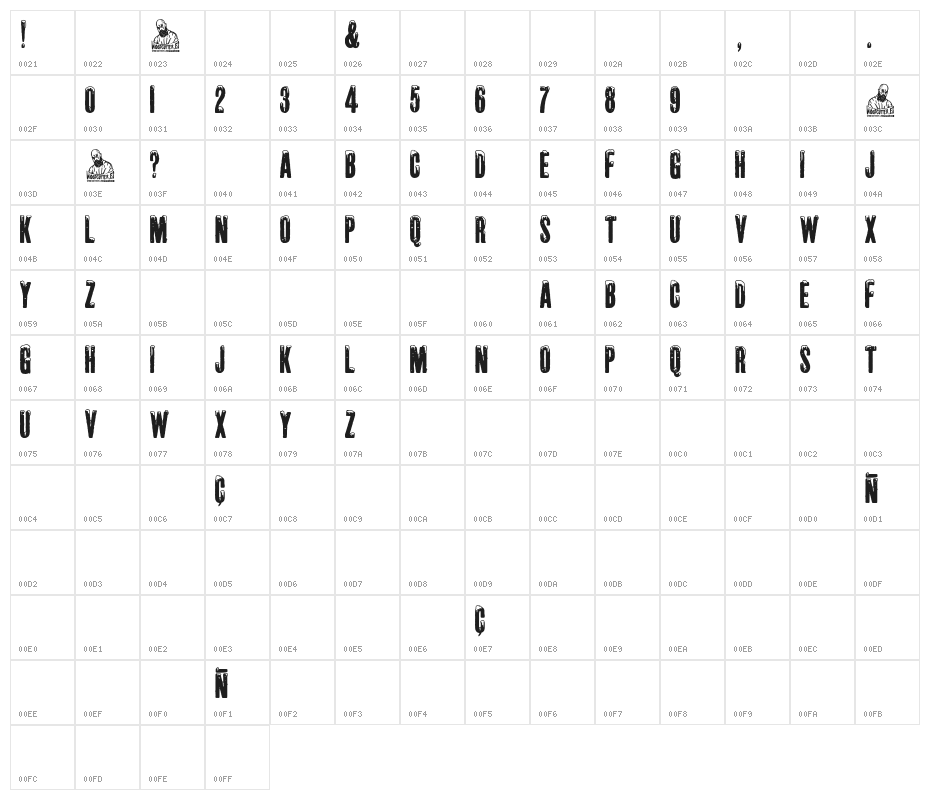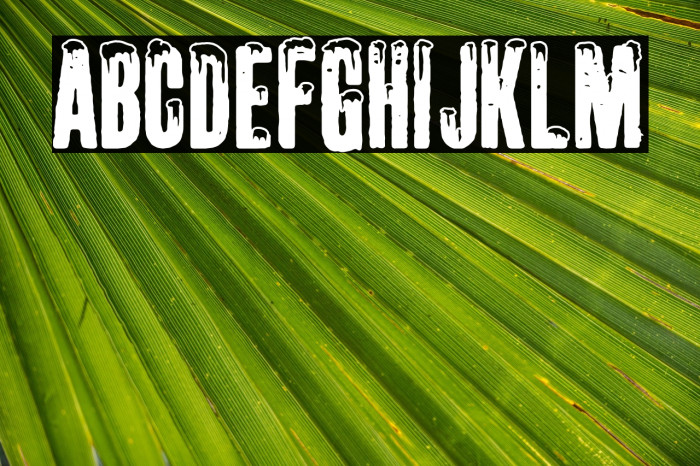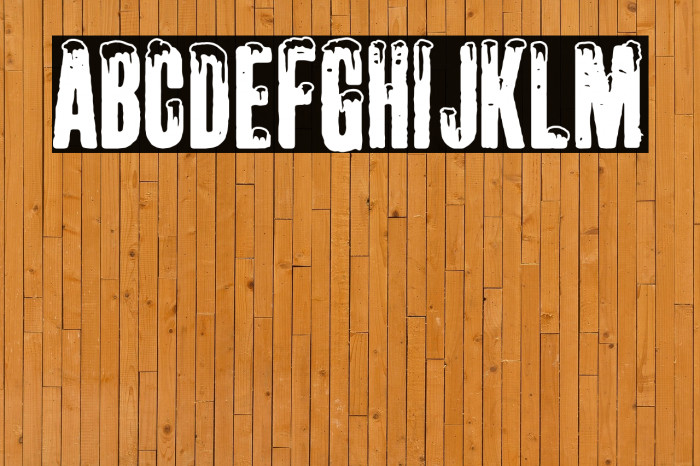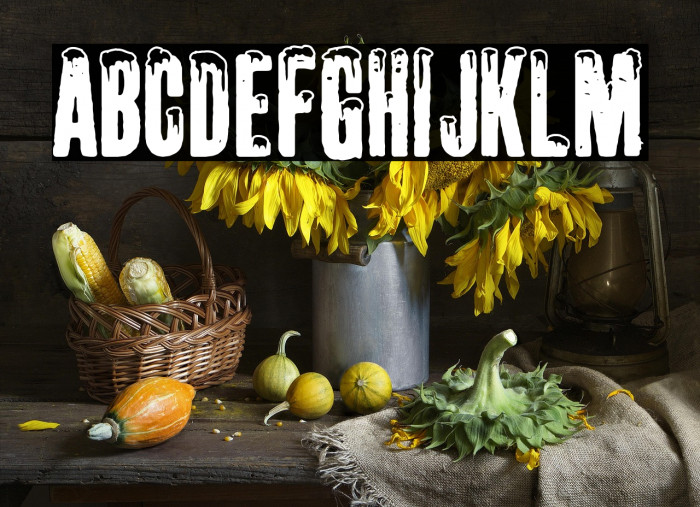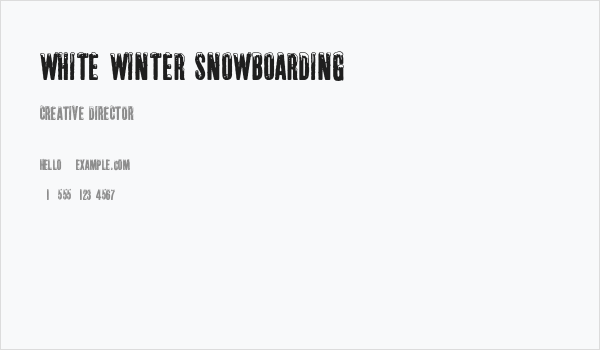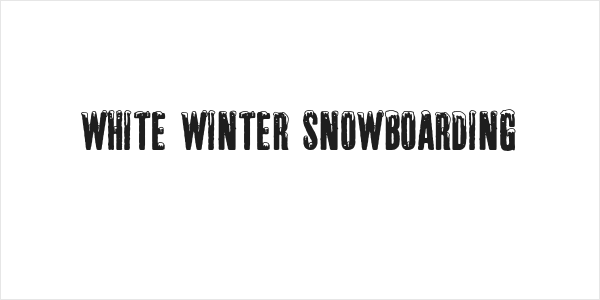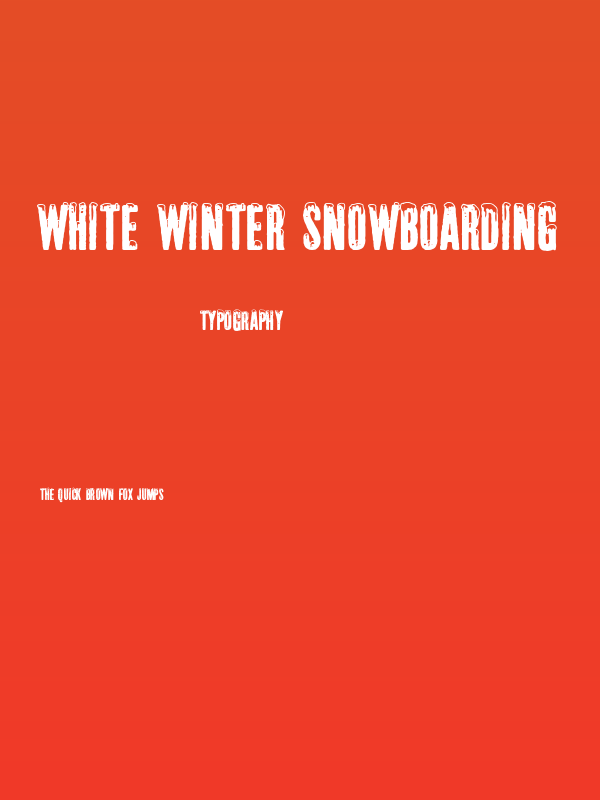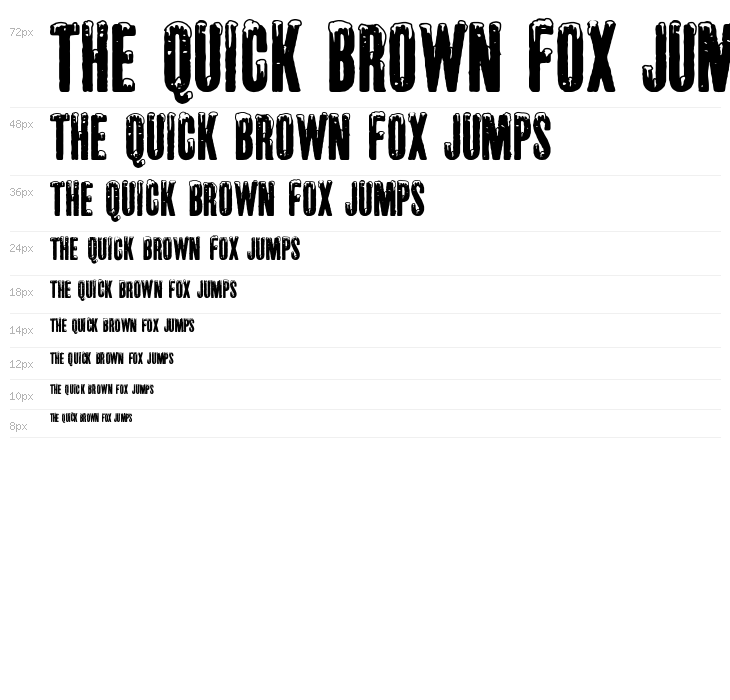
White Winter Snowboarding Font
White Winter Snowboarding Description
This font features a bold, distressed style with a snowy, textured appearance that evokes a wintery, rugged feel. The uppercase letters are prominent and display a unique, weathered look, as if they are covered in snow or frost. The numbers and special characters maintain this consistent theme, adding to the overall cohesive design. The font's boldness and decorative elements make it stand out, suitable for projects that require a strong, impactful visual presence.
| Proposed Projects | Ideal for winter-themed posters, holiday cards, outdoor adventure branding, and snowboarding event promotions. |